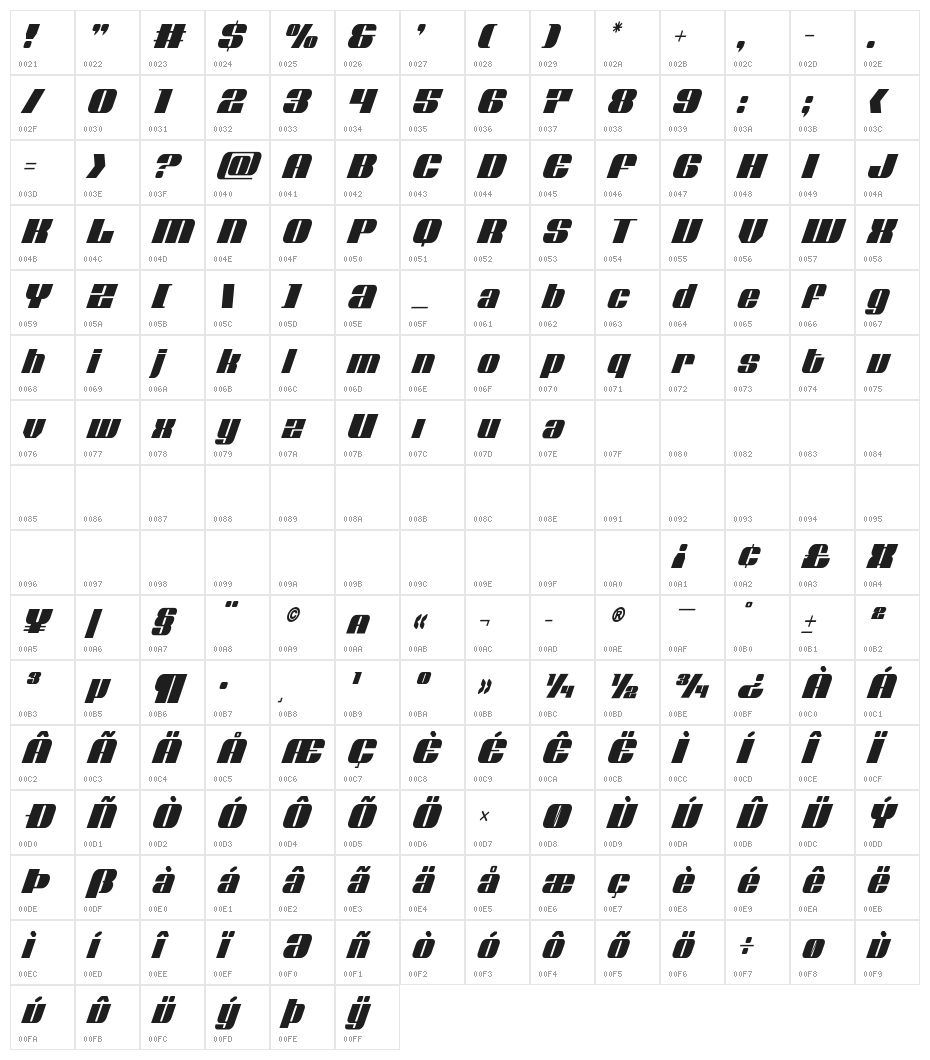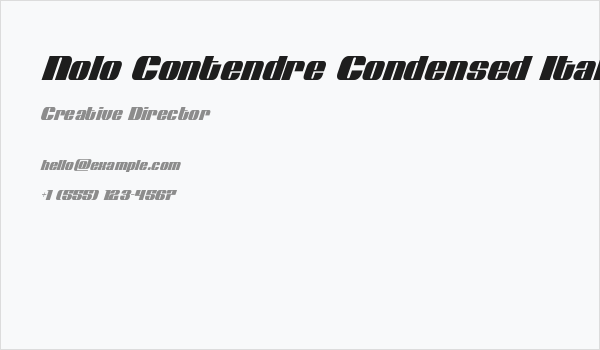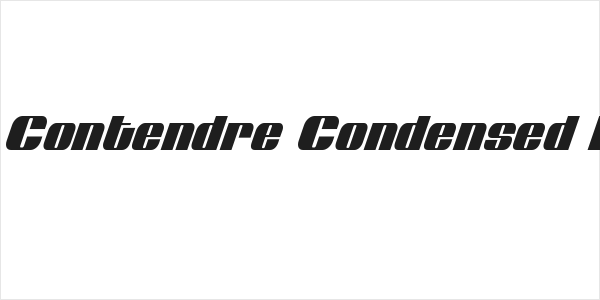
Nolo Contendre Condensed Italic Font
Nolo Contendre Condensed Italic Description
This font features a bold and dynamic style with a condensed and italicized form. The characters are thick and robust, providing a strong visual impact. The italic slant adds a sense of motion and urgency, making it suitable for attention-grabbing headlines. The condensed nature allows for efficient use of space, making it ideal for compact designs. The font maintains a consistent stroke width, offering a uniform appearance across all characters. Its modern and sleek design is perfect for contemporary projects that require a bold statement.
Proposed ProjectsIdeal for headlines, posters, branding, and advertising where a strong and modern aesthetic is desired.